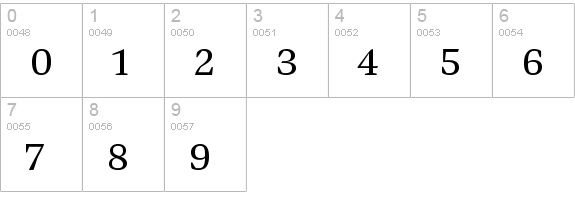
PretoSerifOTStd Regular 7 is the standard, neutral variant in the PretoSerifOTStd typeface family \xE2\x80\x94 well suited to general body text, paragraphs, and standard typographic work.
PretoSerifOTStd Regular 7 font is a versatile and elegant typeface that exudes sophistication and charm. Its timeless serif design makes it perfect for a wide range of projects, from branding to editorial design. With its balanced proportions and clean lines, PretoSerifOTStd Regular 7 font offers a sense of classic refinement while maintaining a modern touch. What sets this font apart is that it is available for free download at FontsMarket.com, making it accessible to designers and creatives looking to add a touch of sophistication to their work without breaking the bank. Whether you're working on a print project, a website design, or a branding campaign, PretoSerifOTStd Regular 7 font is sure to elevate your work and leave a lasting impression on your audience.